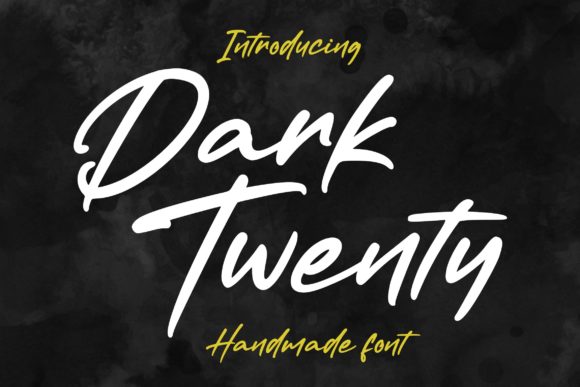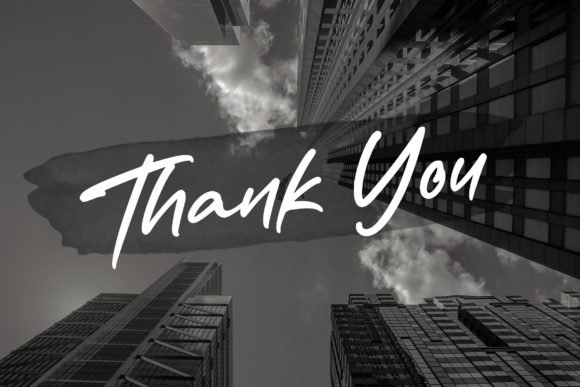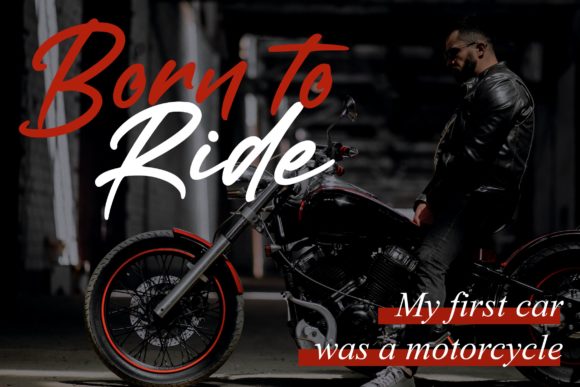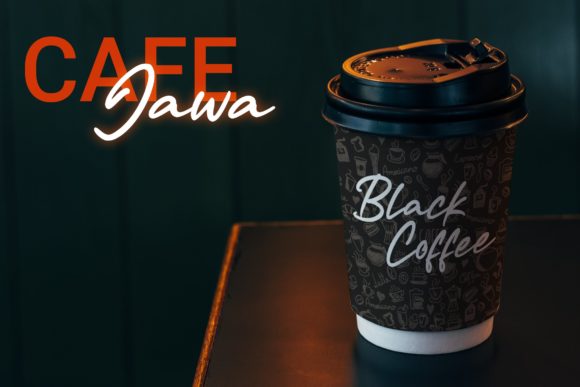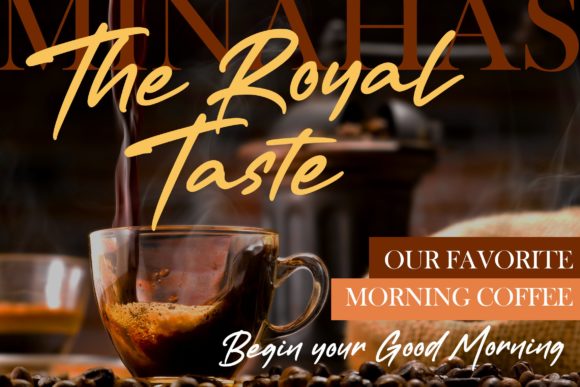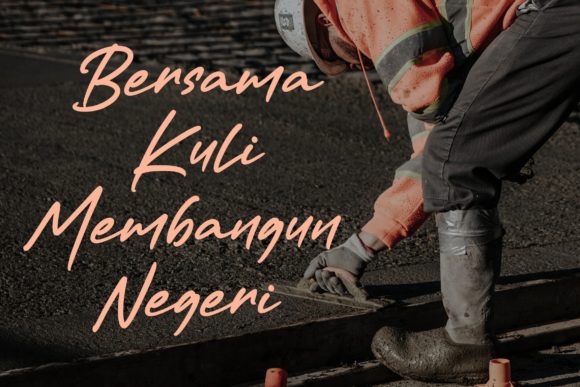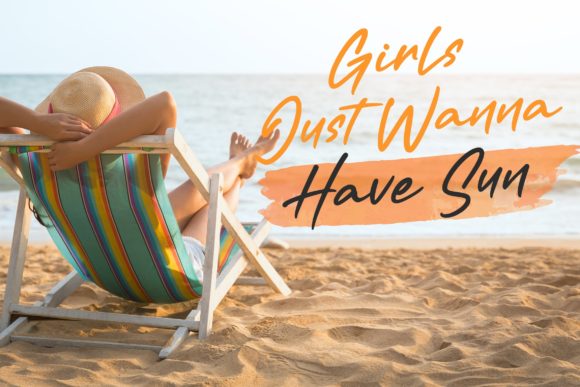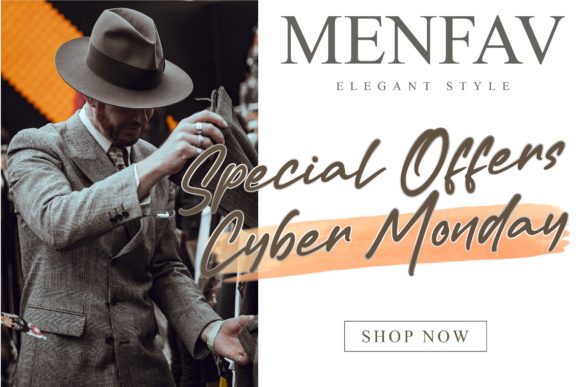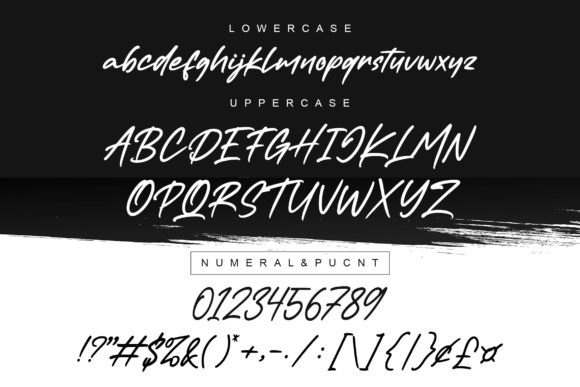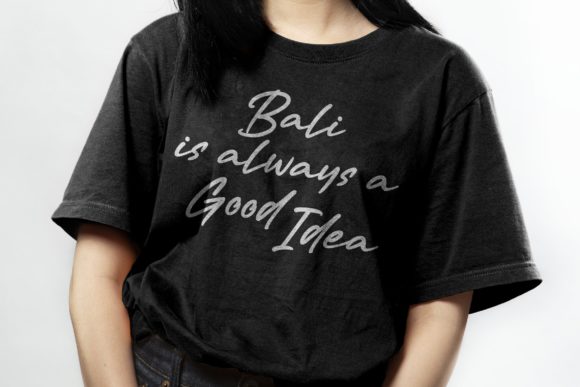
Dark Twenty Font
About Dark Twenty Font
Introducing “Dark Twenty” – a casual and modern handwritten font that brings a contemporary flair to your crafting projects. With its unique style, this font adds a personalized touch to any creative endeavor.
Dark Twenty strikes the perfect balance between casual and modern. Its relaxed letterforms and contemporary aesthetic make it a versatile choice for a wide range of crafting projects. Whether you’re creating handmade cards, scrapbooks, posters, or any other craft project, this font adds a touch of authenticity and personality.
With Dark Twenty, you have the freedom to express your creativity and bring your crafting projects to life. Its casual and modern vibe complements various design elements, allowing you to create personalized and eye-catching compositions.
This font embraces the essence of individuality and uniqueness. Its handwritten appearance adds a sense of warmth and charm, creating a connection with your audience. Let Dark Twenty be the tool that empowers you to showcase your personal style and create standout crafting projects.
Dark Twenty is designed to be user-friendly and accessible. Its clarity and legibility ensure that your message is conveyed effectively, while its modern twist adds a contemporary edge to your designs.
In summary, Dark Twenty is a casual and modern handwritten font that adds a personalized look to your crafting projects. Embrace its contemporary flair and let it bring a touch of authenticity and uniqueness to your creative endeavors. Get ready to unleash your creativity and make your crafting projects truly standout with Dark Twenty!